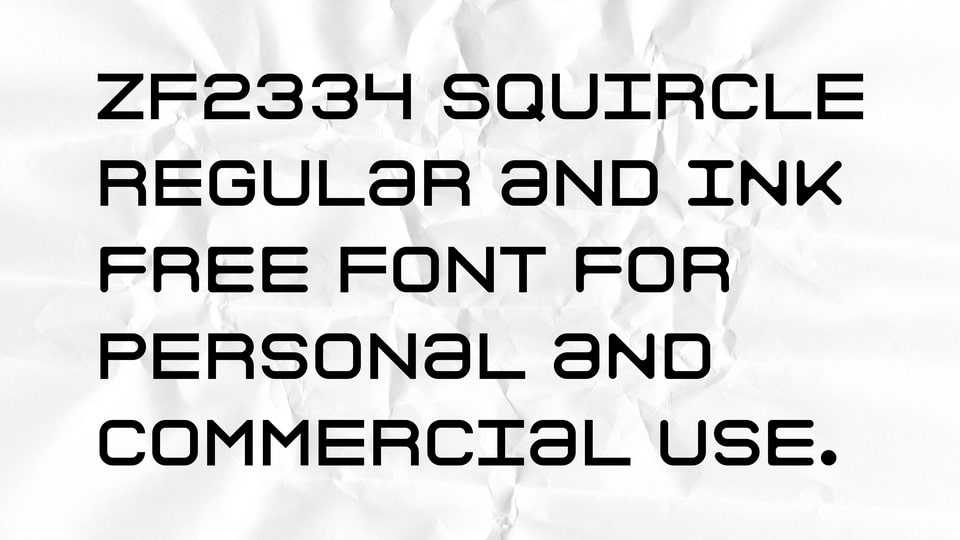
Download ZF2334 Squircle font, a futuristic and geometric sans-serif typeface with a distinct squircle-inspired structure. Combining the precision of modern technology with a touch of retro sci-fi aesthetics.